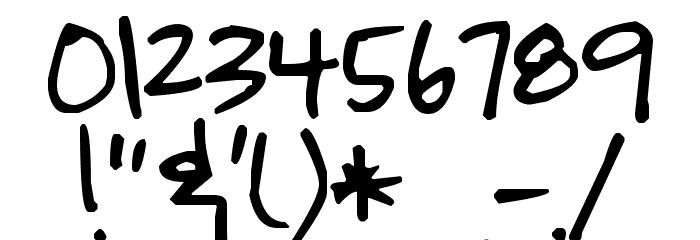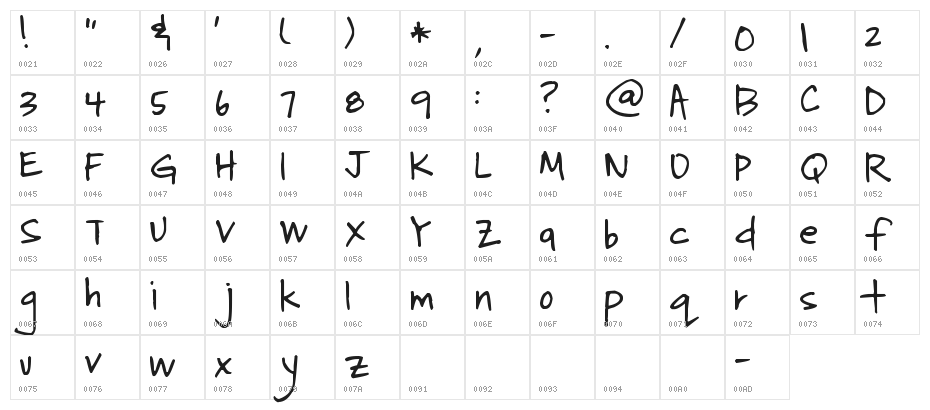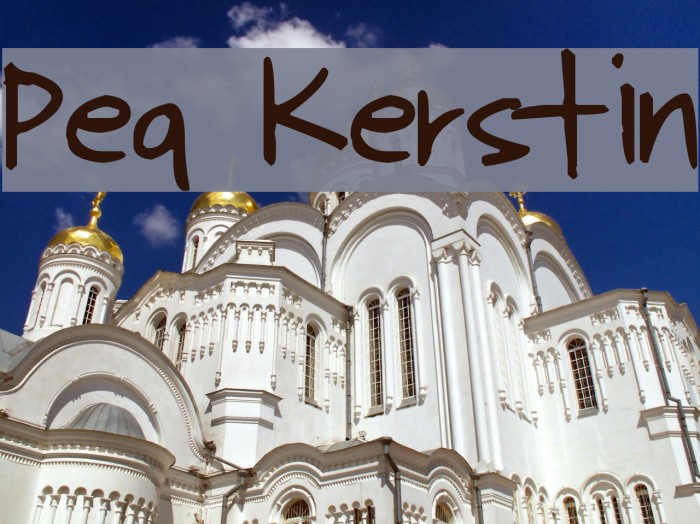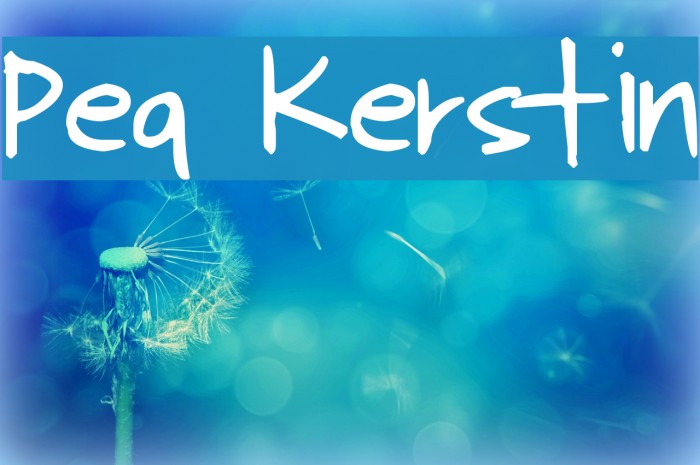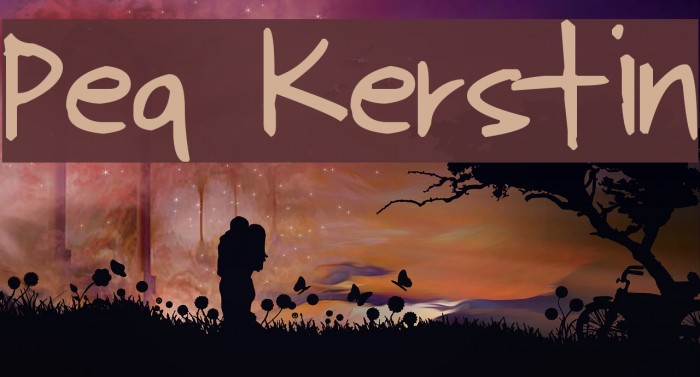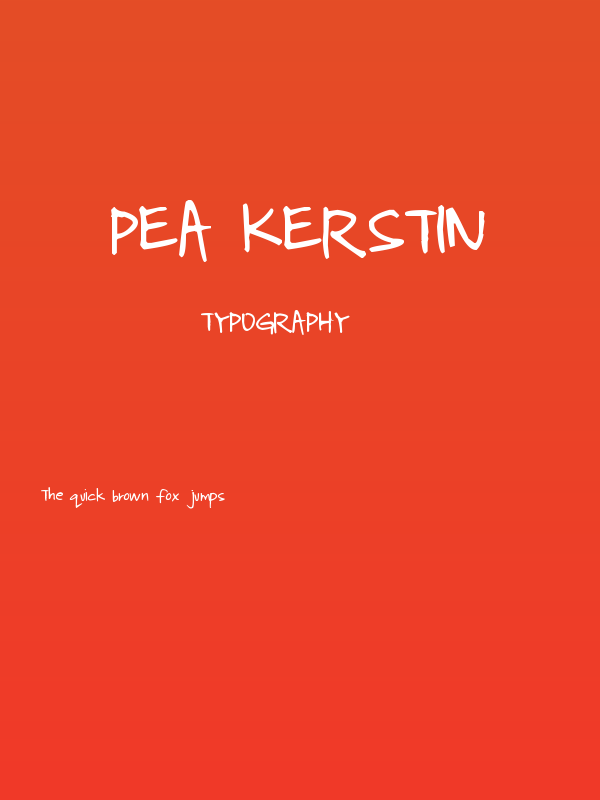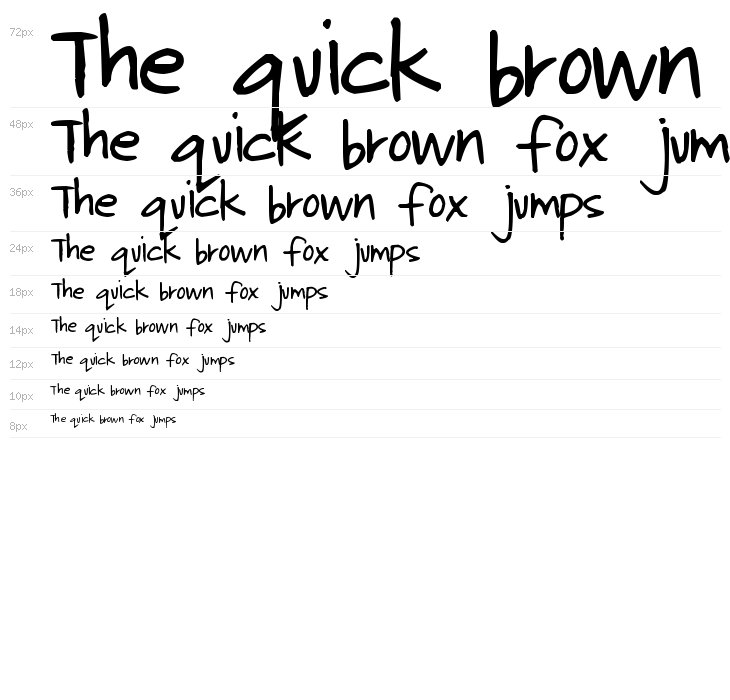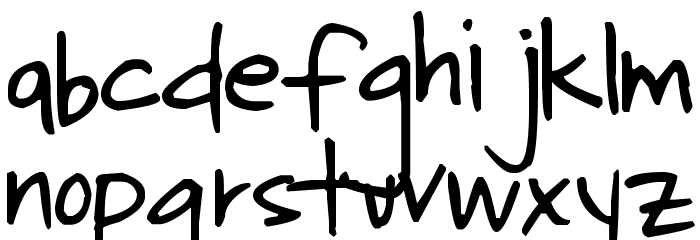
Pea Kerstin Font
Pea Kerstin Description
This font exudes a playful and casual handwritten style, characterized by its irregular strokes and informal appearance. The letters are slightly slanted, giving it a dynamic and lively feel. The uppercase and lowercase letters maintain a consistent style, with rounded edges and varying stroke widths that add to its charm. The numerals and special characters follow the same playful aesthetic, making it suitable for projects that require a personal touch. Its overall appearance is approachable and friendly, making it ideal for creative and informal designs.
| Proposed Projects | Ideal for greeting cards, personal notes, children's books, and informal branding. |